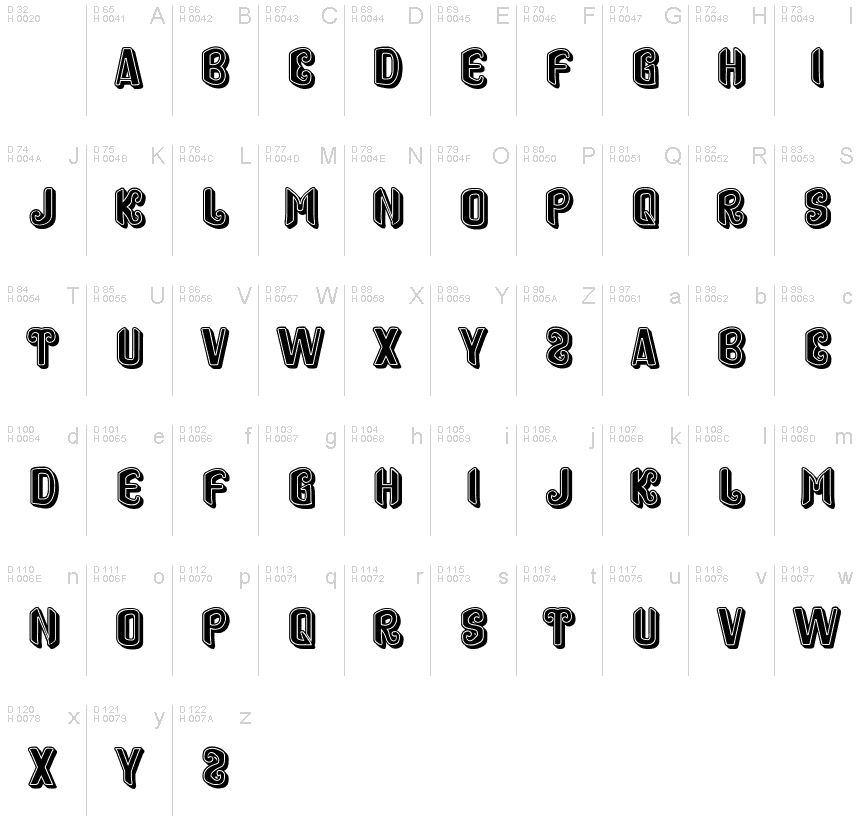
Salvadora Regular
Salvadora, the bold and captivating display font from designer Vladimir Nikolic, is the perfect addition to any project that demands attention. With its semi-condensed width and powerful design, Salvadora is a versatile choice for a variety of projects. Use it to add a touch of elegance to your website or to create eye-catching headlines in your next print ad campaign. Its bold weight makes it ideal for titles and headings, while its unique style ensures that your message won't be missed. Try Salvadora today and give your project the boost it deserves!